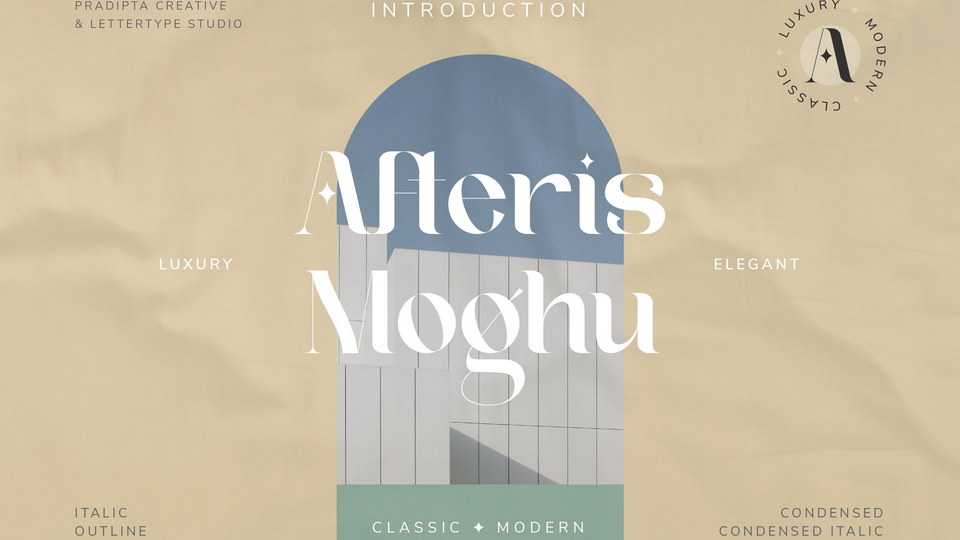
Download Afteris Moghu font, a modern serif typeface with a vintage feel to make your projects beautiful. Afteris Moghu will be perfect for logo design, branding, clothing, signage, posters, wedding invitations and more.
Designer: Pradipta Creative